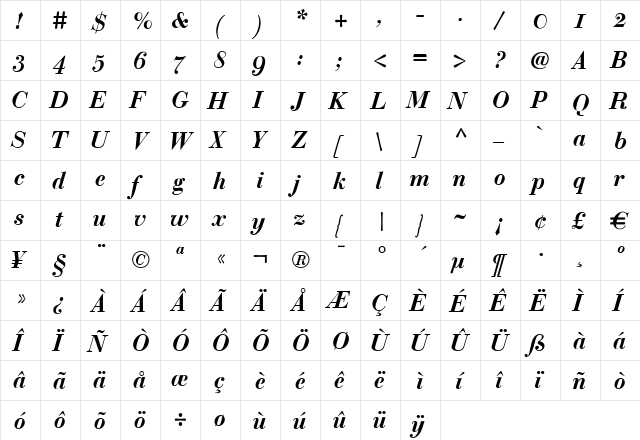
Bodoni Classic Ad Bold Italic
Design Context for Bodoni Classic Ad Typeface
Bodoni Classic Ad has the warm character of retro typography — evoking diners, record sleeves, and the golden age of print advertising. The dynamic lean of this cut emphasises speed and emphasis in any layout. Its bold stroke weight gives it real presence on the page.
Ideal for diner signage, record shop branding, 70s/80s-themed projects, and heritage product labels.
Font Pairing: Combine Bodoni Classic Ad with a simple slab or neutral sans — period-accurate companions reinforce the vintage feel without competing for attention.
Pro Tip: Lean into Bodoni Classic Ad's period character by pairing it with aged paper textures, muted colour palettes, and vintage illustration styles.